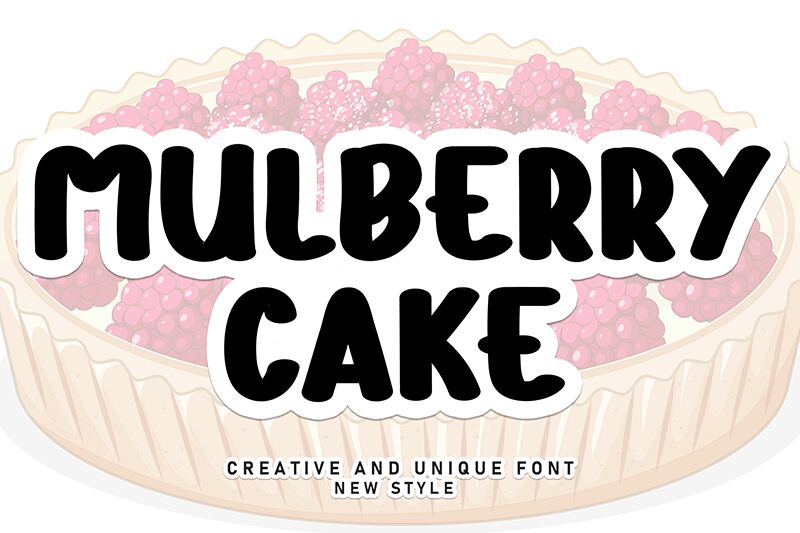
Mulberry Cake
Mulberry Cake font by Andi Moz is a free brush font combining organic shapes, many even-sized strokes, and an excellent whimsical brush style. The typeface has a smooth appearance with big ends and subtle roughness which together create a joyful and friendly presence with great appeal across young audiences.
Use this casual font’s visual fun for posters, advertising designs, packaging stickers or any sort of graphic that requires attention. As the perfect go-to typeface for children-oriented projects such as kids-related books or cartoons use it to significantly increase your work's potential. Other appropriate uses are funny content posts on social media platforms.